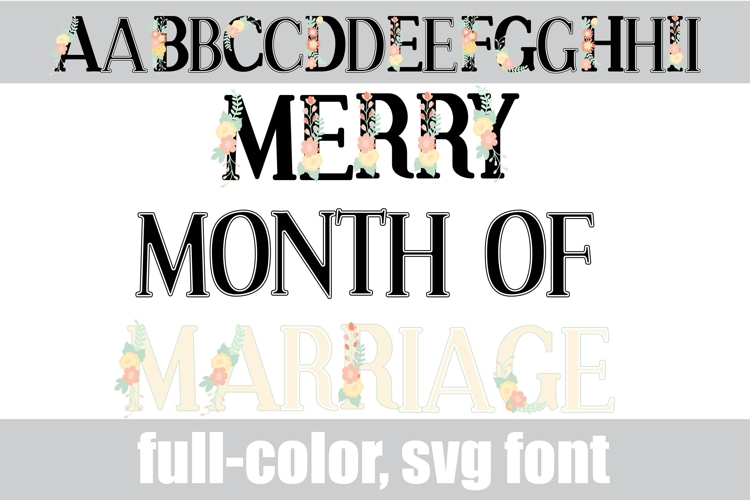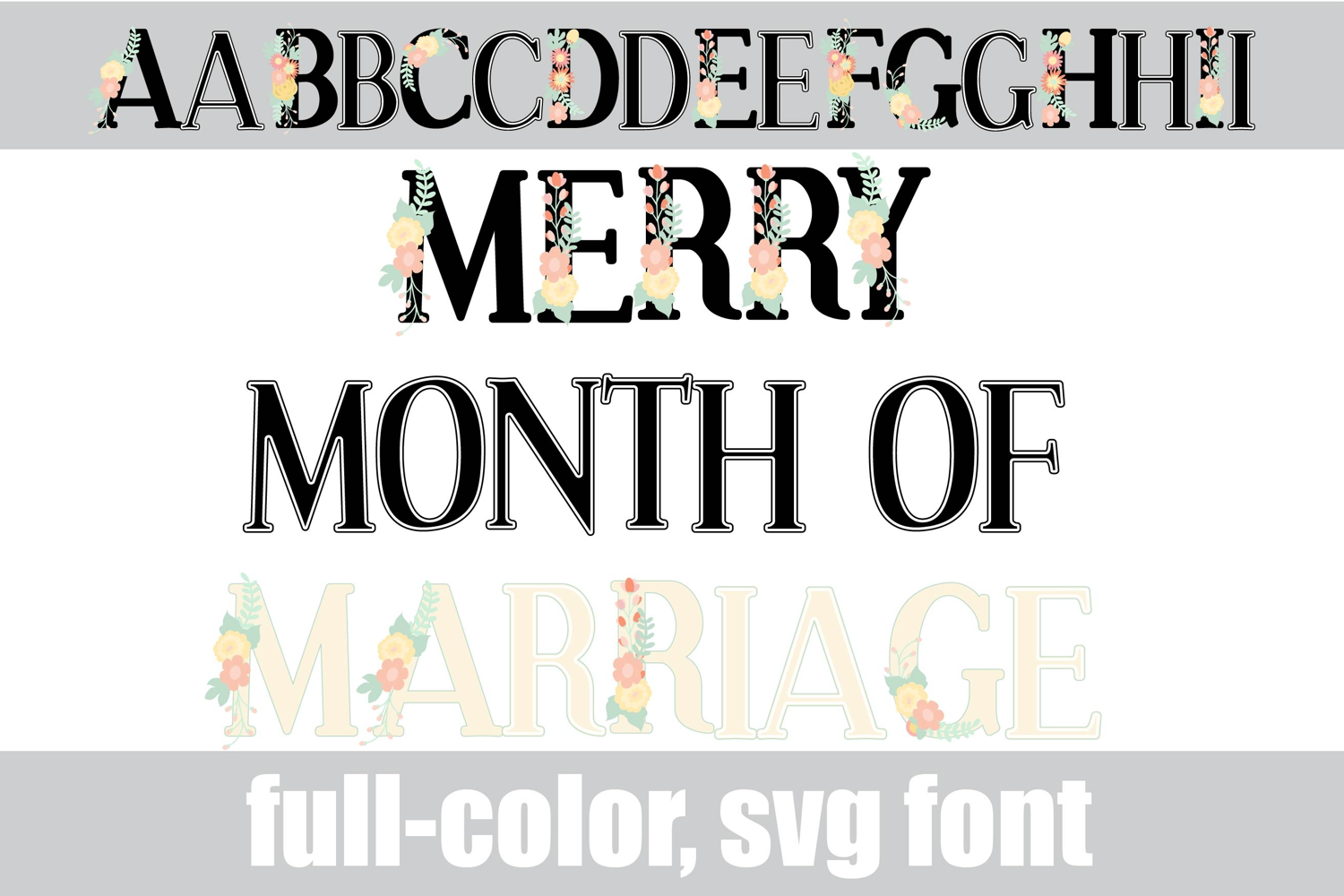
Merry Month of Marriage Color Font
This full-color, serif font sports pastel florals. There is an alt case of additional colors of each letter that you can access through your system's character map.